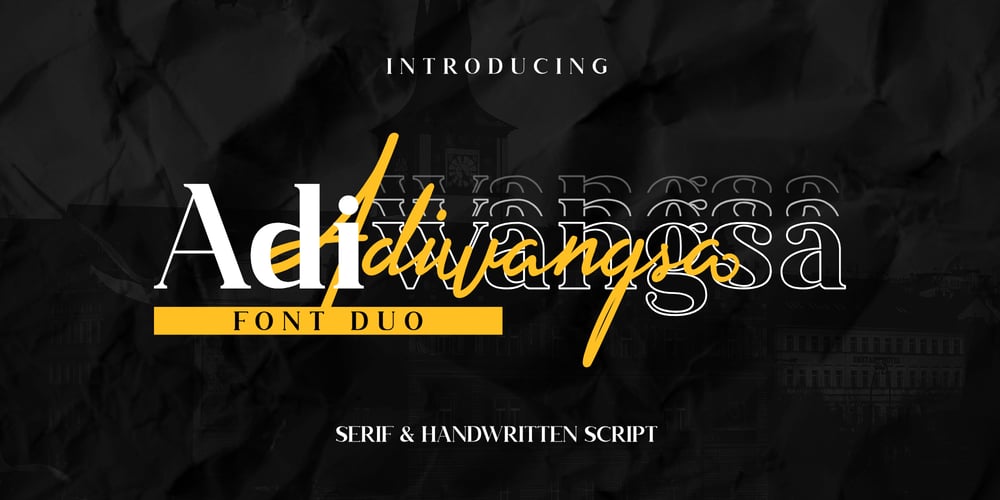
Adiwangsa Font Family was designed by Hazim Mujahid and published by Dotzeem. Adiwangsa contains 2 styles and family package options. Introducing, Adiwangsa is a clean Serif and Handwritten Script Typeface for your Design that is fit for your next creative project such as logos, product packaging, Logotype, Letterhead, Poster, Apparel Design, Label, and etc.This Adiwangsa Typeface includes also support a Multilingual Characters.